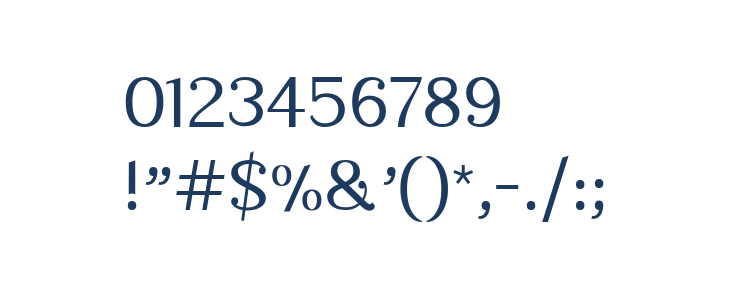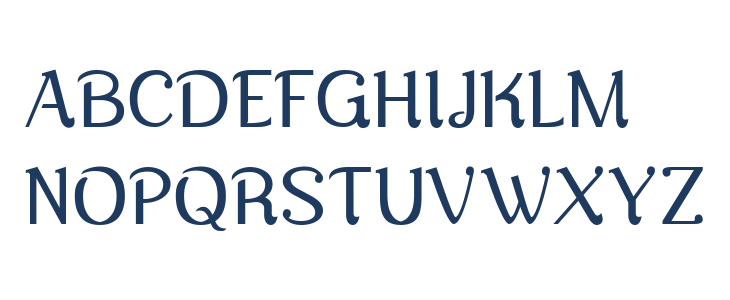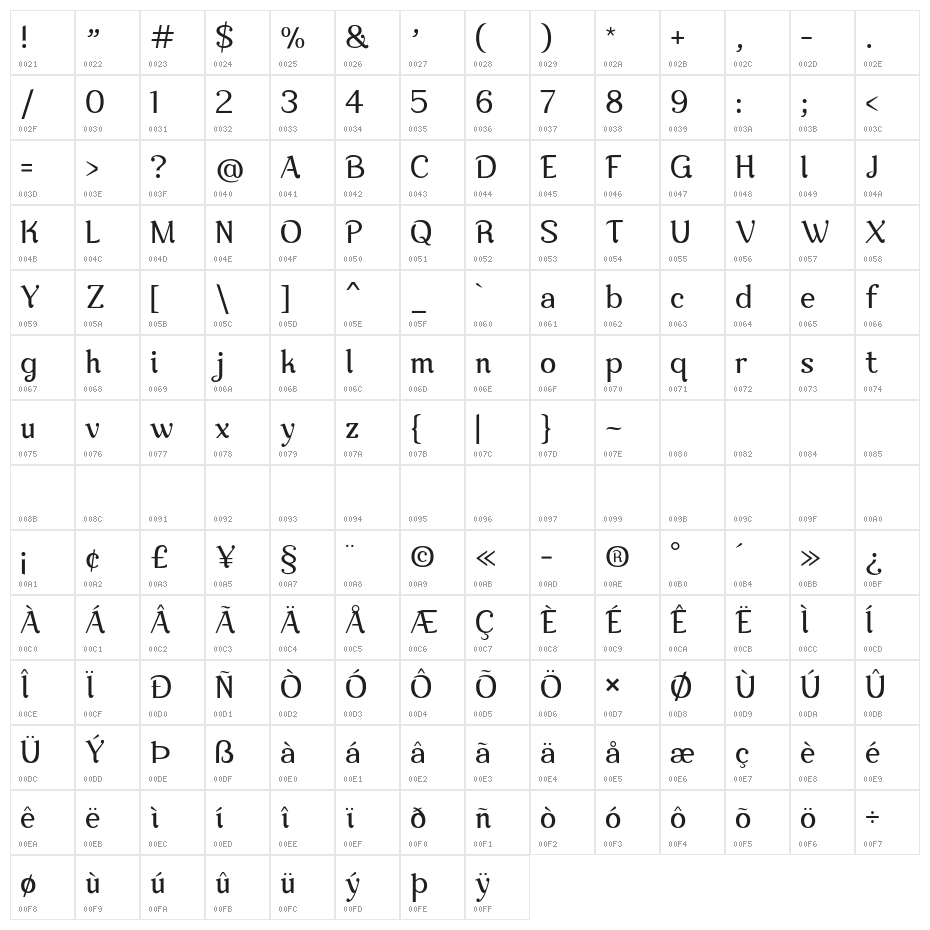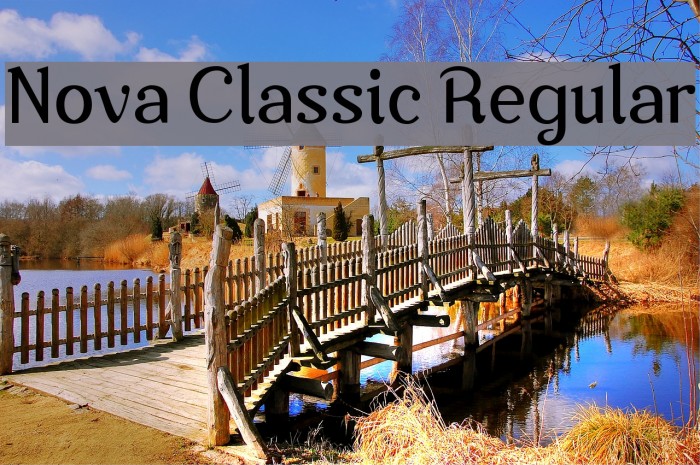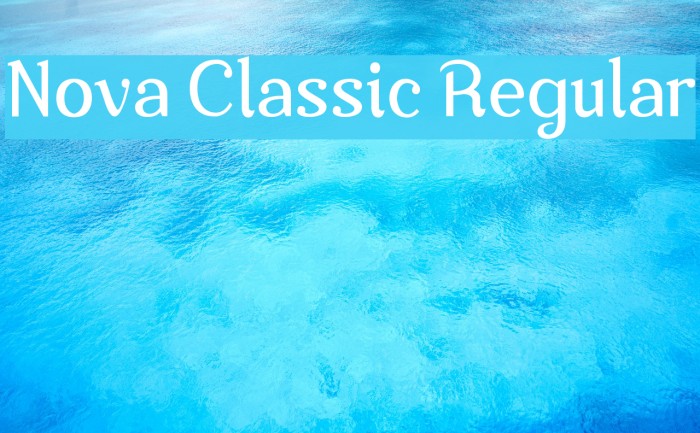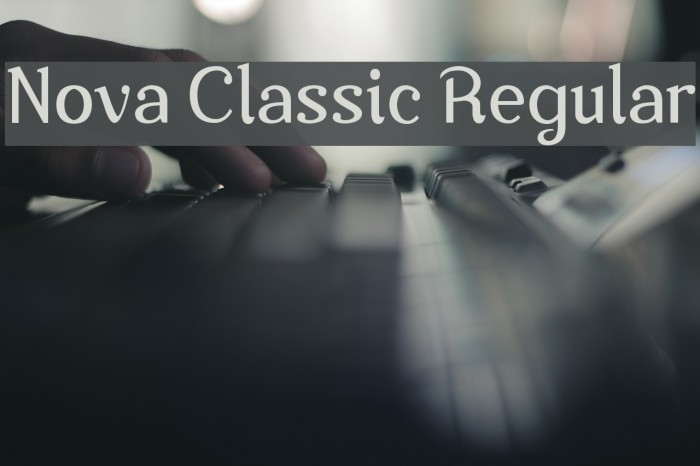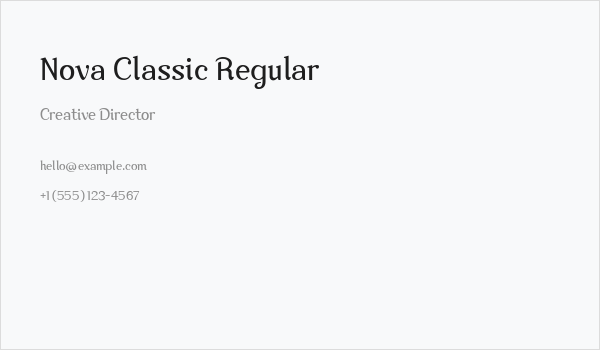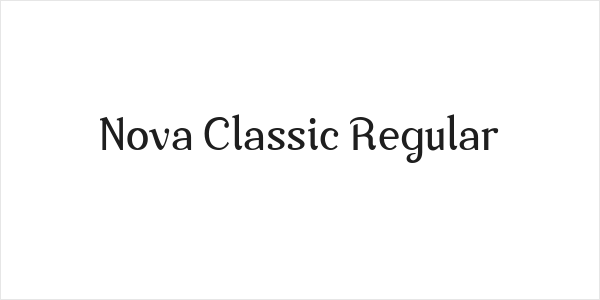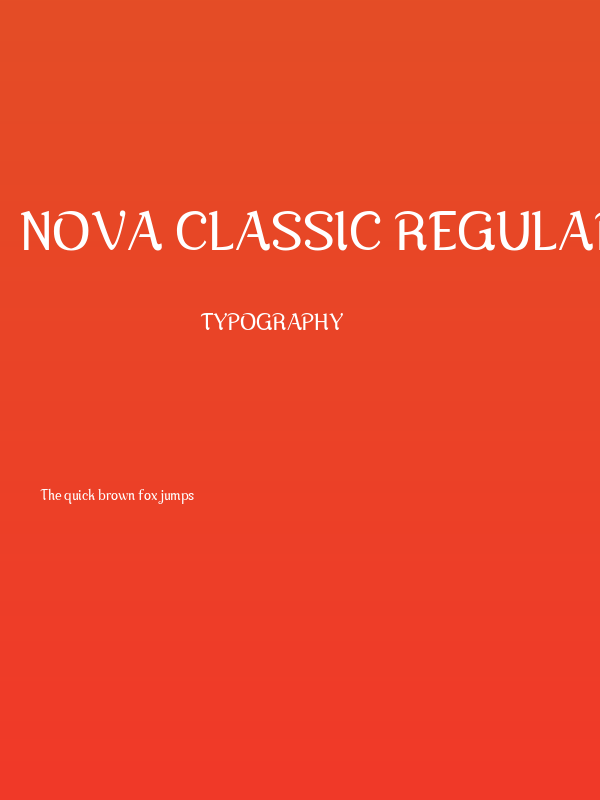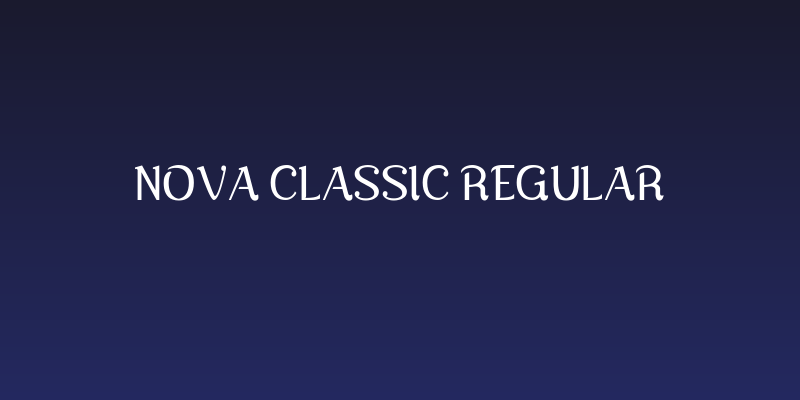
Nova Classic Regular Font
Nova Classic Regular Description
This font features a classic serif style with elegant curves and a refined appearance. The uppercase letters are bold and commanding, while the lowercase letters maintain a graceful flow. The numerals are clear and balanced, making them easy to read. Special characters are designed with the same attention to detail, ensuring consistency across all glyphs. The overall design is timeless, suitable for a variety of formal and professional applications.
| Proposed Projects | Ideal for book covers, formal invitations, branding for luxury products, and editorial design. |